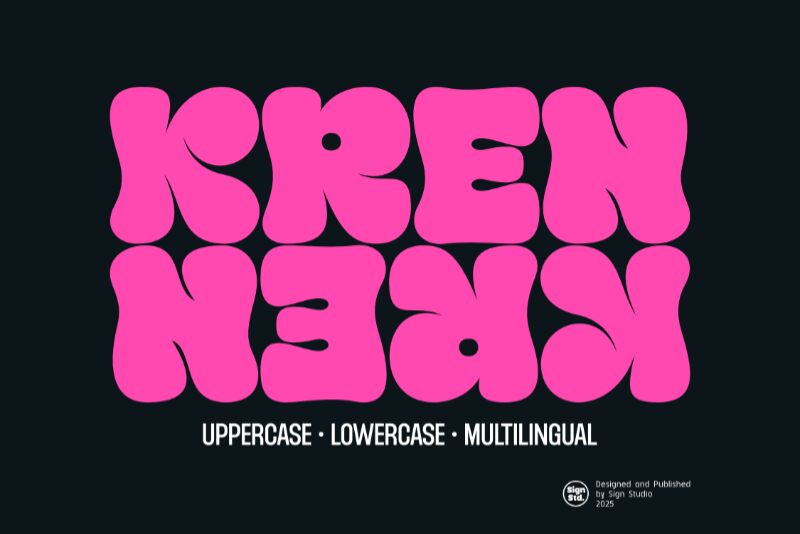
Kren Regular
Kren font by Sign Studio is a free bold display font with groovy style. With inspiration coming from the 1960s, this font brings a groovy and organic feel to all its letters and words. In addition to these features, Kren holds nostalgia not only for the older decade but for the retro font style as well.
Fun projects are where Kren can take action. These include vibrant posters, event cards, music cover designs, personal magazine covers/journals, signage, branding designs/logos (as subheadings), clothing prints/t-shirt included), tattoo typography; all of which put this smart funky typeface in good use.